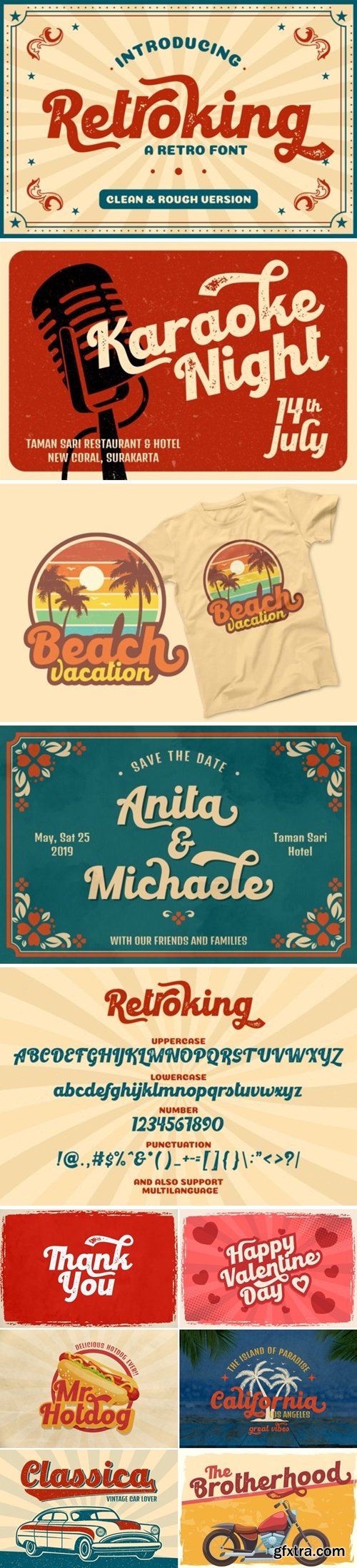
CM - Retroking - Retro Font 4671242
Retroking looks bold, yet sophisticated and features chunky and retro characters that will look particularly adept when used in logos, branding, packaging design, and much more. This masterfully designed display font is a true must-have!